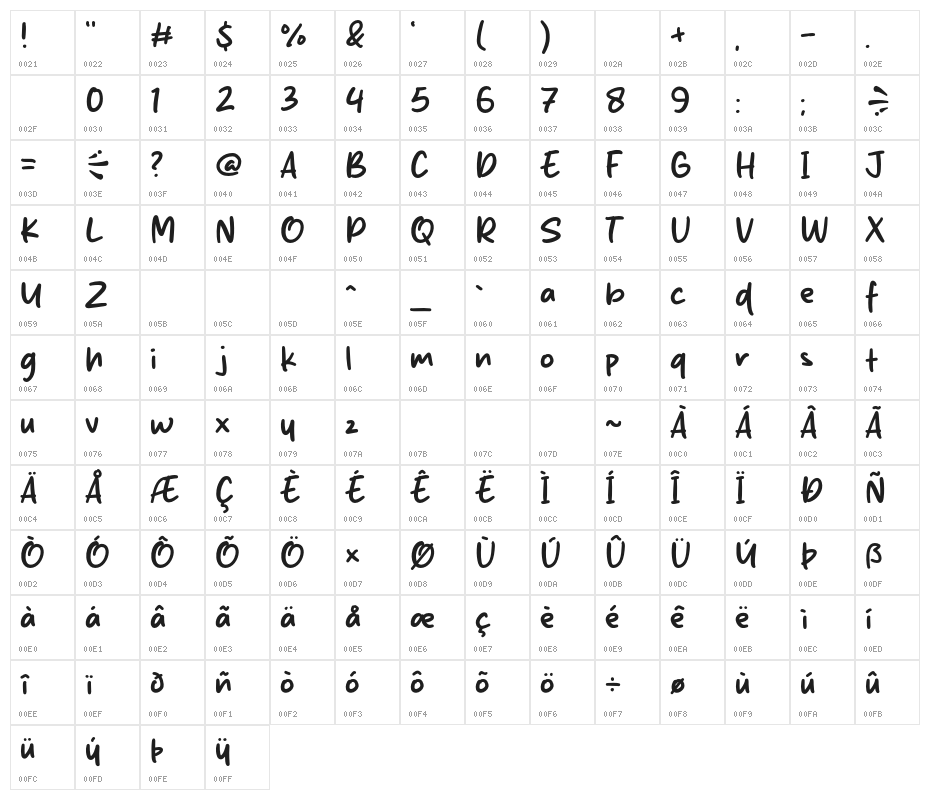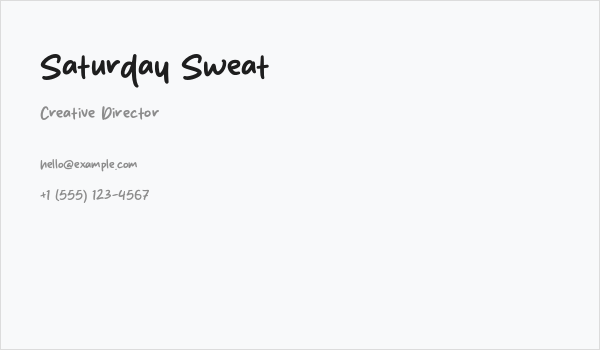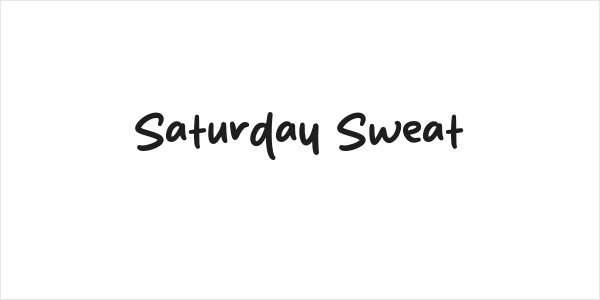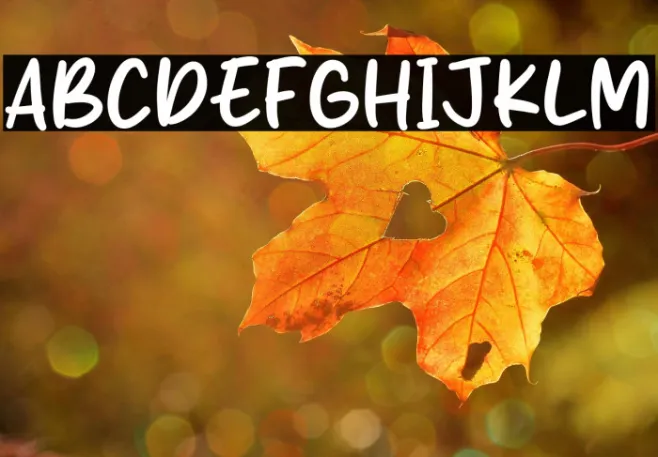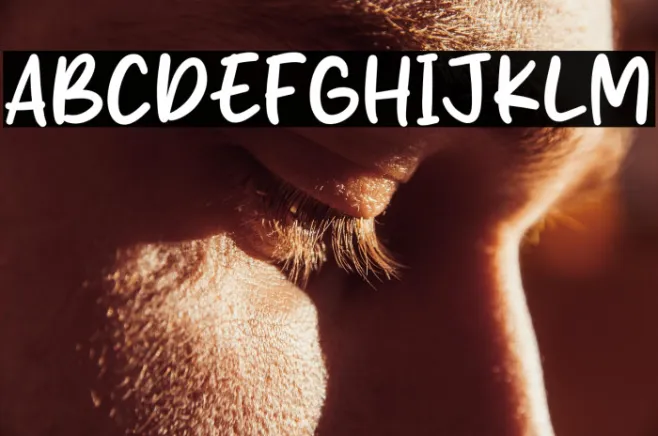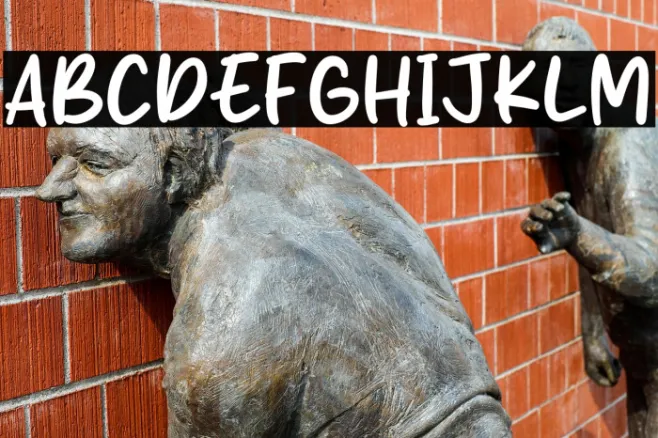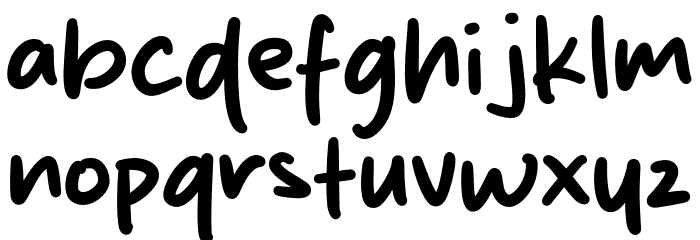
Saturday Sweat Font
Saturday Sweat Description
This playful and energetic font exudes a casual and friendly vibe, characterized by its handwritten style. The letters are bold and rounded, giving off a sense of approachability and warmth. The strokes are consistent in thickness, providing a uniform appearance that is easy on the eyes. The font maintains a natural flow, mimicking the fluidity of handwriting, which adds a personal touch to any text. The characters are slightly slanted, enhancing the informal and relaxed feel. This font is versatile, suitable for a variety of creative projects that aim to convey a sense of fun and spontaneity.
| Use Case | Logos, Headlines, Informal Texts |
| Proposed Projects | Ideal for greeting cards, social media graphics, children's books, and casual branding. |